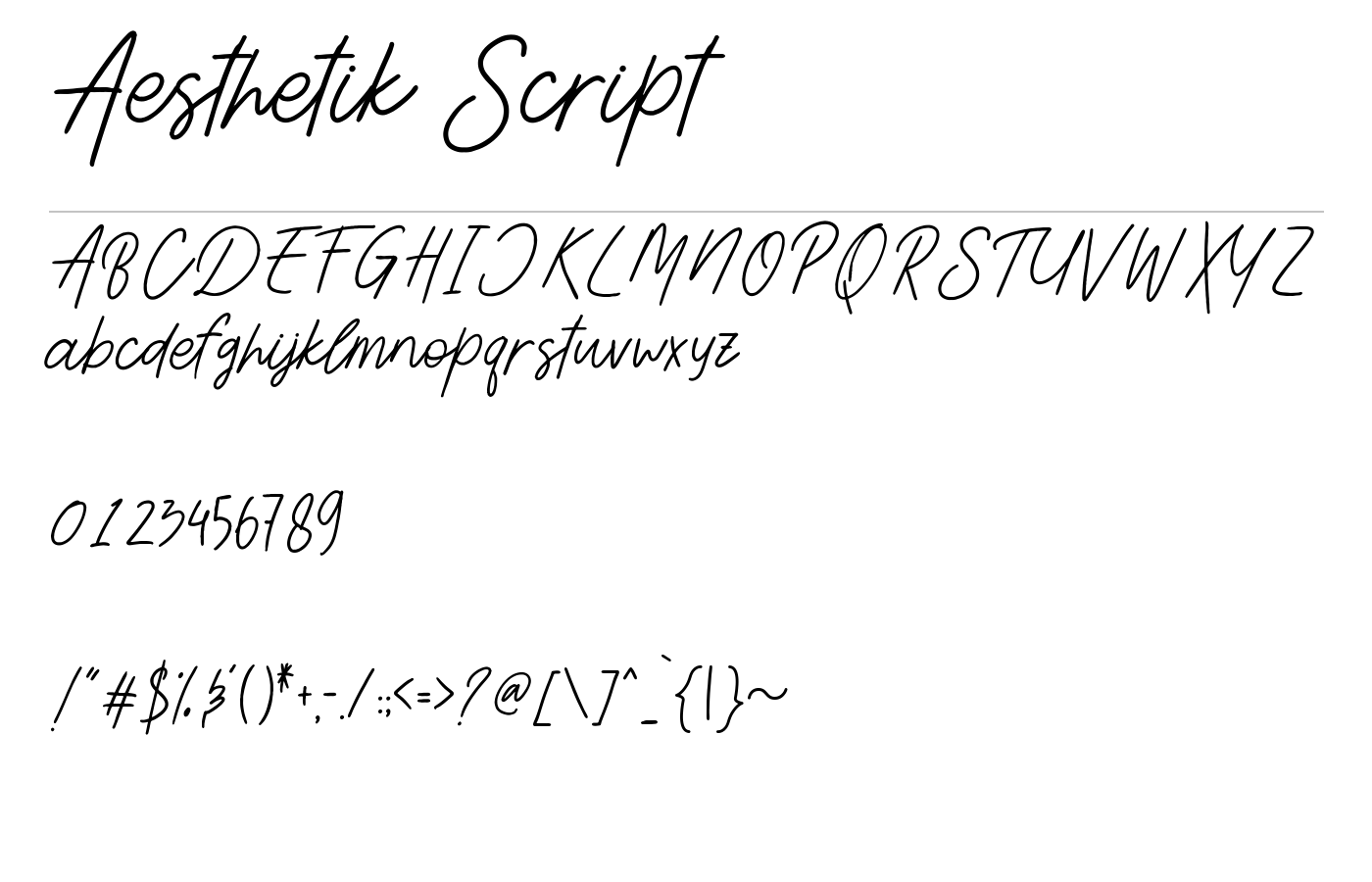
Aesthetik Script is a graceful, modern handwritten font characterized by its slender, slightly slanted strokes and casual elegance. With a light weight and airy spacing, it delivers a natural, personal feel perfect for stylish branding, invitations, and creative projects that seek a friendly yet refined touch. Its versatile uppercase and lowercase letters, along with neatly designed numbers and symbols, make it an excellent choice for both headlines and decorative text.
Aesthetik Script Font
About Aesthetik Script Font
| Font family | Aesthetik Script Font |
| Designer | Ian Irwan Wismoyo |